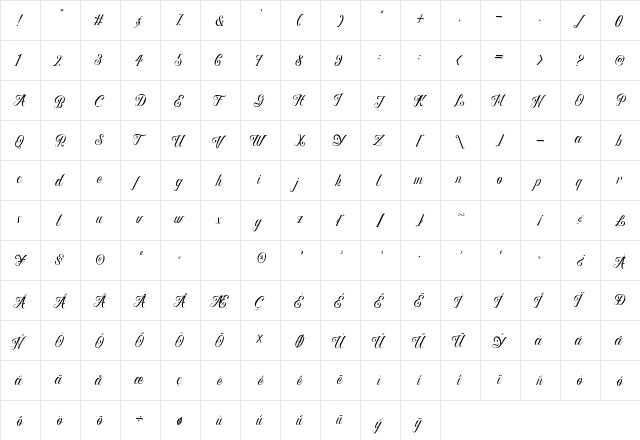
Rhegina Darling Regular
| Foundry | StringLabs |
| Designer | Virgiawan Listanto |
Design Context for Rhegina Darling Typeface
Rhegina Darling is a composed and adaptable typeface that performs quietly and consistently across a wide range of design contexts.